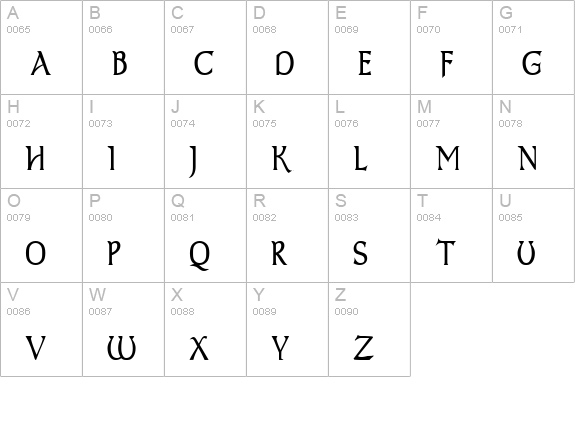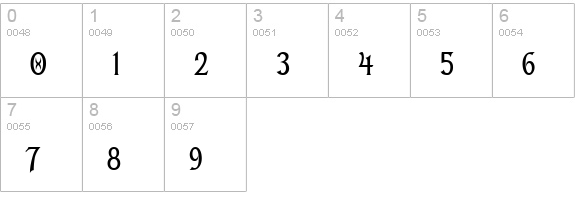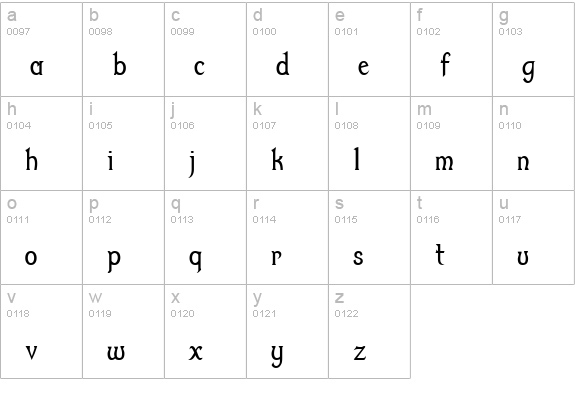
Dumbledor 2 Thin is a delicate, low-contrast variant in the Dumbledor typeface family \xE2\x80\x94 well suited to fashion editorial, minimal branding, and high-contrast display.
Dumbledor 2 Thin font is a sleek and elegant typeface that exudes sophistication and modernity. With its thin and refined letterforms, this font is perfect for adding a touch of class to any design project. Whether you're creating invitations, logos, or branding materials, Dumbledor 2 Thin font will elevate your work to new heights. Best of all, Dumbledor 2 Thin font is available for free download at FontsMarket.com. This means you can access this stylish font without any cost, making it a valuable addition to your font library. Don't miss out on the opportunity to enhance your designs with the timeless beauty of Dumbledor 2 Thin font – download it today and elevate your creative projects to the next level.